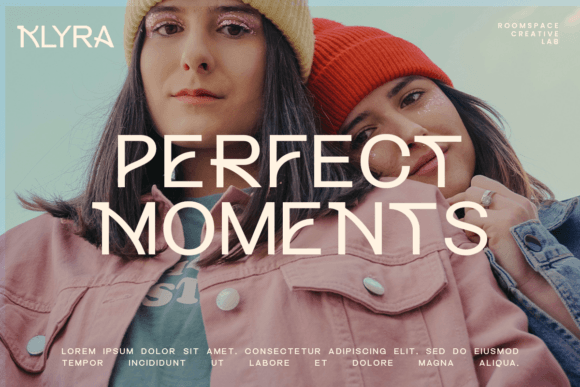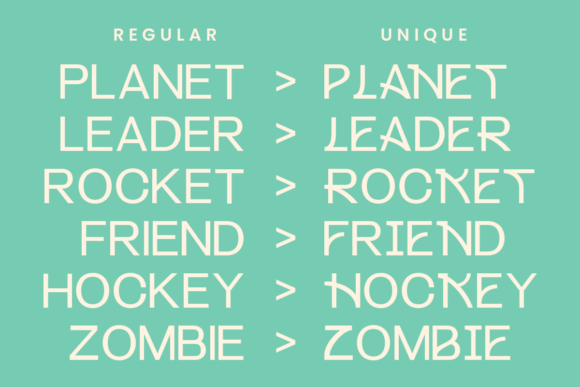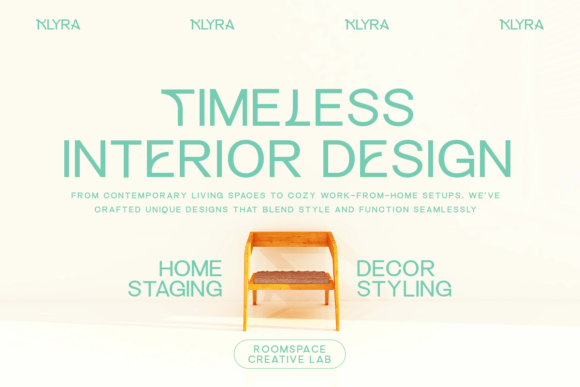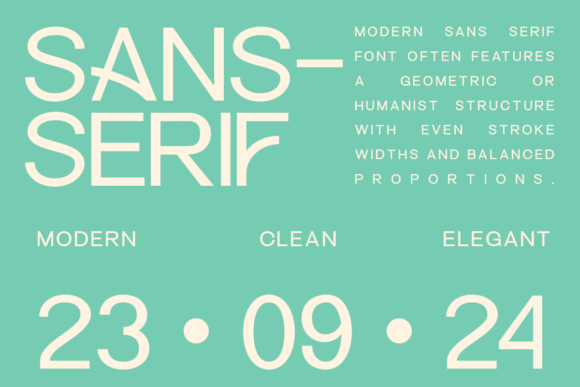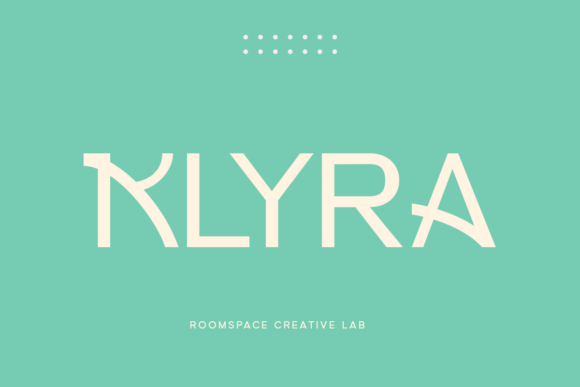
The Birth of a New Era in Typography
Have you ever found yourself staring at a blank page, waiting for that elusive spark of creativity to strike? It’s a feeling that every designer knows all too well. For those of us who live and breathe design, there’s no greater thrill than bringing an idea to life with the perfect font. And that’s exactly what the Klyra Font does – it sparks imagination and sets the tone for a truly unique visual identity.
With its meticulously crafted uppercase letters and harmonious lowercase counterparts, the Klyra Font is more than just a typeface – it’s a tool for creatives to express themselves. Whether you’re building a brand from scratch or updating your digital presence, this innovative design is the perfect companion to help you stand out in a crowded world.
Klyra Font Key Features
• Font Family: Klyra comes in two font families – Klyra Regular and Klyra Bold.
• Klyra Regular
• Klyra Bold
• Unique Characteristics: Klyra features a modern, sans-serif design with clean lines and a friendly feel, making it suitable for various applications, including digital products, logos, and body text.
• Language Support: Klyra supports a wide range of languages, including Latin, Cyrillic, and Greek alphabets.
Klyra Font Review
I recently had the chance to work with the Klyra font, and I must say it’s a mixed bag. On the one hand, there are some things that really stand out.
• ✨ The Klyra font has a very unique and distinctive feel to it. It’s modern and edgy, making it perfect for those looking to add a bit of flair to their designs.
• ✨ The font is highly legible, even at smaller font sizes, which is a must-have for any font in my book.
• ✨ The Klyra font also comes in a wide range of weights and styles, making it incredibly versatile and suitable for a variety of design projects.
However, there are also some limitations to consider.
• ⚠️ The font can feel a bit overused, especially in certain design niches. I’ve seen it used in far too many logos and branding materials, which can make it feel less unique.
• ⚠️ The font can also be a bit too bold for some projects, which can make it feel overwhelming or even difficult to read.
Overall, I think the Klyra font is a solid choice for designers looking to add some personality to their work. While it’s not perfect, its unique feel and high legibility make it a great option for a wide range of projects. Just be sure to use it thoughtfully and in moderation.
Tips for Getting the Most Out of Klyra Font
Use Klyra font for titles, headings, and other emphasis text to add a touch of elegance and sophistication to your design.
Pair Klyra font with other fonts to create a unique and visually appealing typography.
Experiment with different font sizes, colors, and styles to achieve the desired effect.
Klyra font is ideal for:
What is the recommended font size for using the Klyra Font?
The recommended font size for the Klyra Font is between 12 and 18 points. This will help ensure optimal legibility and readability of the font, particularly at larger sizes. However, feel free to experiment with different font sizes to achieve the desired visual effect for your project.